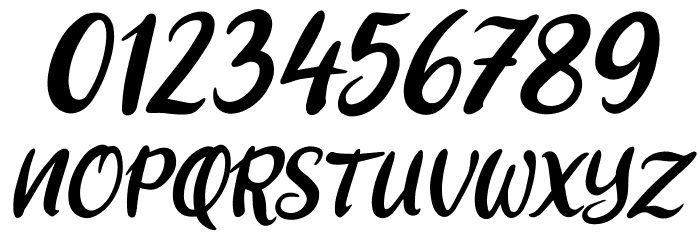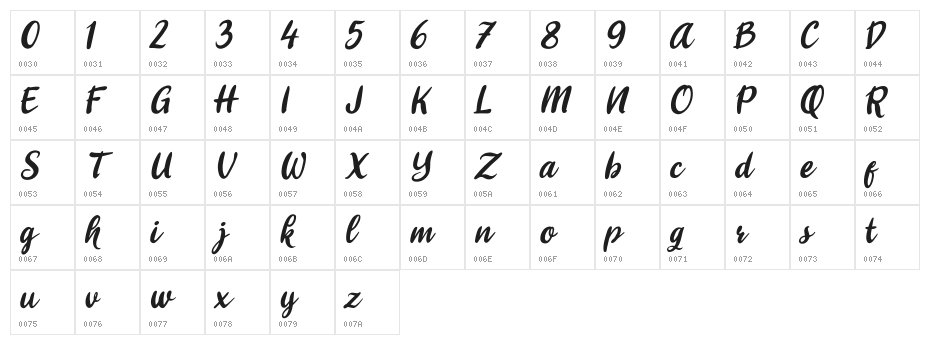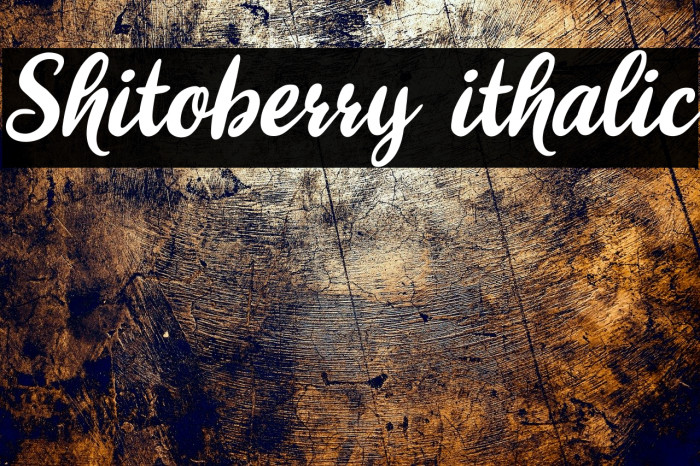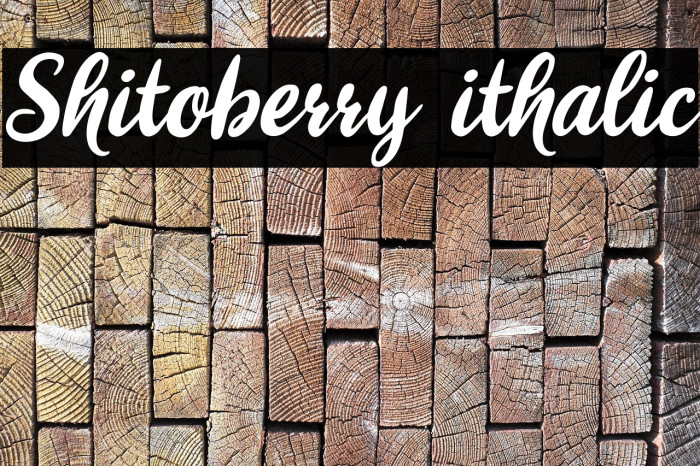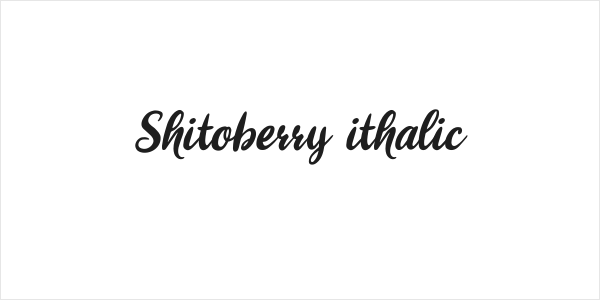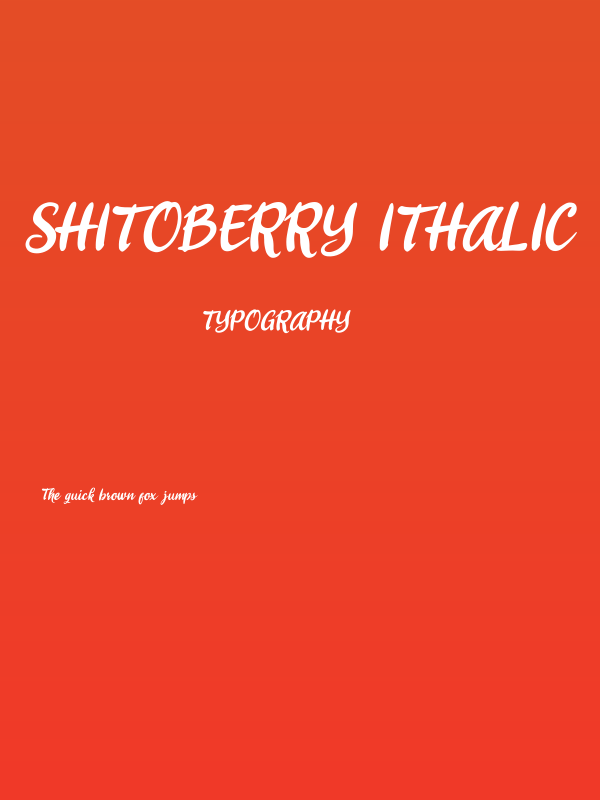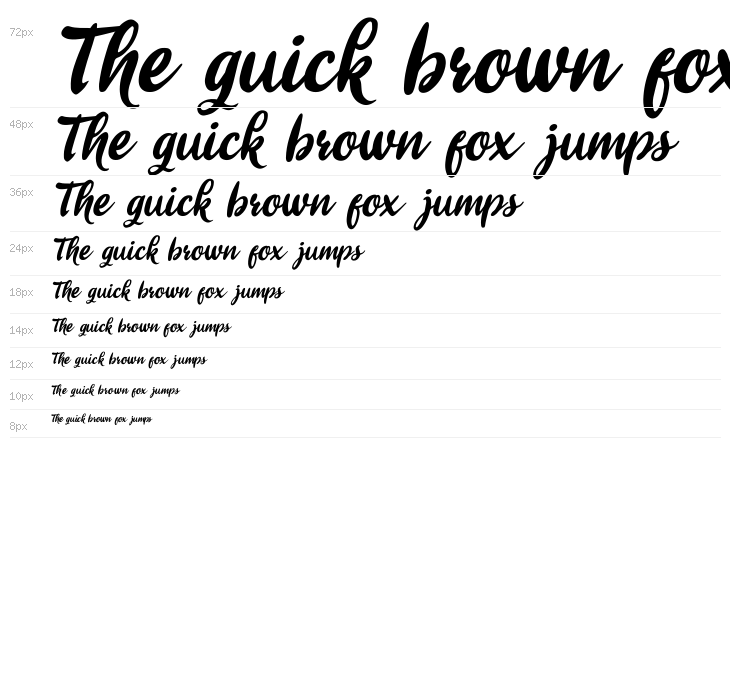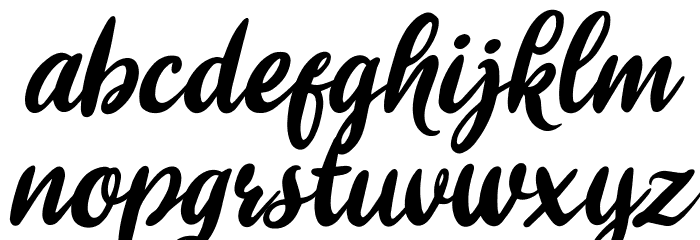
Shitoberry ithalic Font
Shitoberry ithalic Description
This font features a bold and dynamic script style with a flowing, cursive appearance. The letters are connected, creating a sense of movement and elegance. The strokes are thick and consistent, giving the font a strong presence. The uppercase letters are slightly larger and more pronounced, while the lowercase letters maintain a smooth and harmonious flow. The numbers and special characters are designed to match the overall style, ensuring a cohesive look across all text. This font is ideal for projects that require a touch of sophistication and flair.
| Proposed Projects | Ideal for wedding invitations, branding, logos, and elegant packaging designs. |